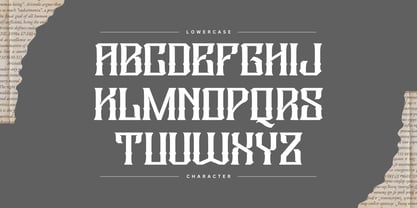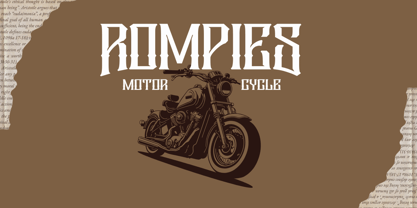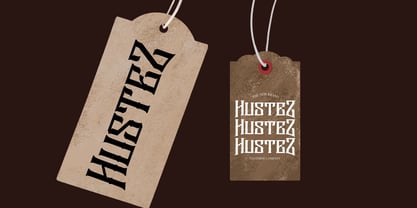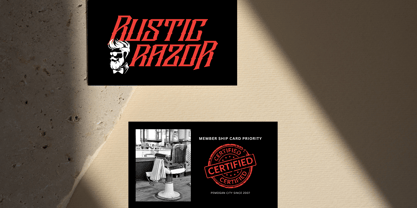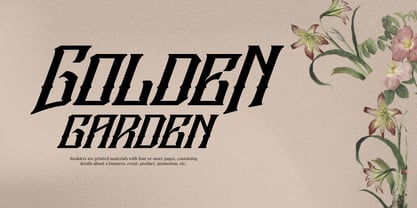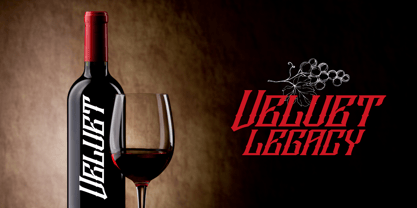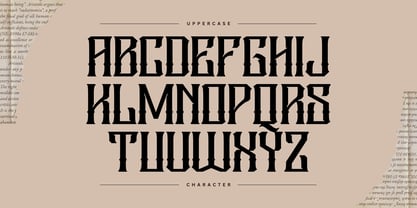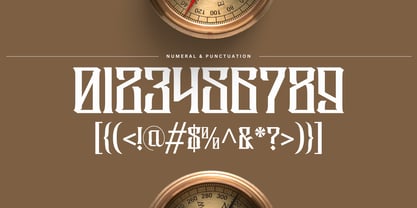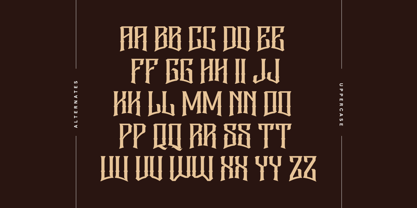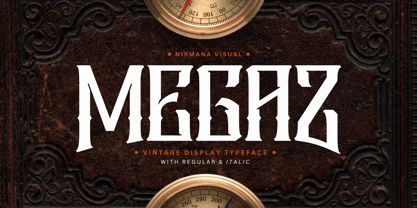
Megaz Vintage
by Nirmana Visual
The Megaz Vintage Font Family was designed by Sigit Dwipa and published by Nirmana Visual. Megaz Vintage contains 2 styles and family package options. More about this family
Megaz is a bold vintage font designed with a rugged charm, perfect for classic themes and motorcycle culture. Featuring strong lines and handcrafted details, it captures the spirit of retro design with a rebellious edge. Megaz comes with unique alternate characters, making it versatile for logos, apparel, posters, and custom builds. Ideal for those who crave nostalgia with power and style. Ride the vibe with Megaz.